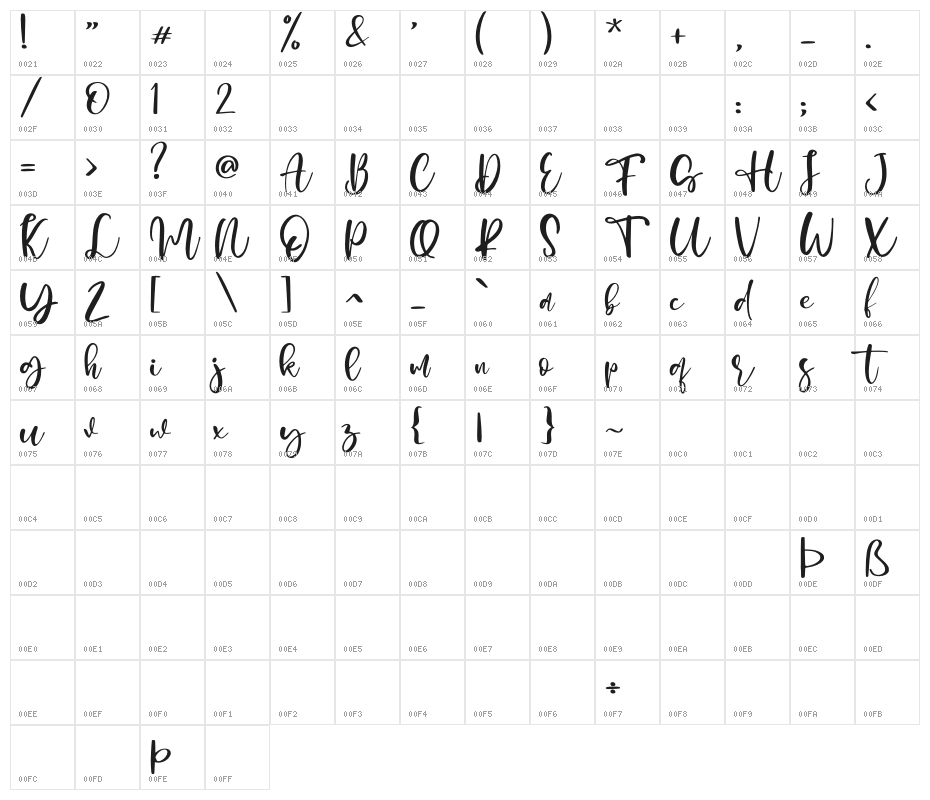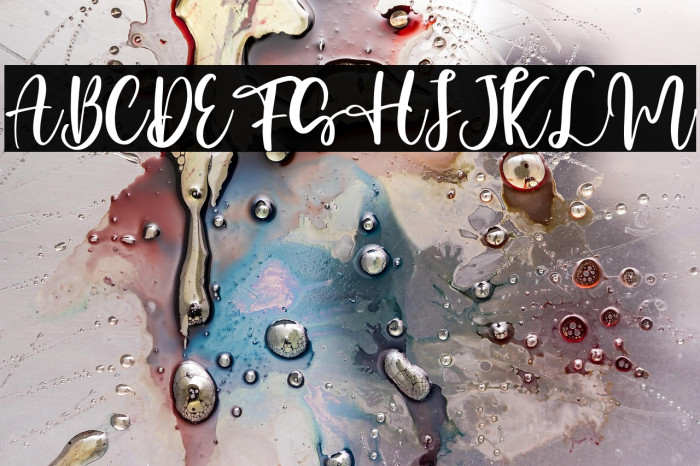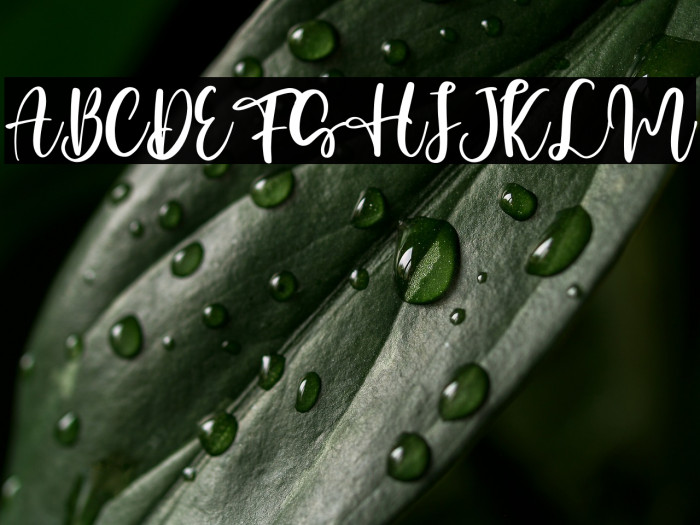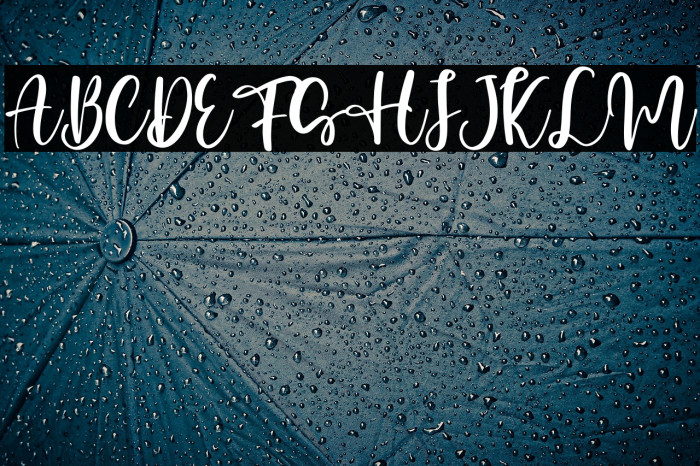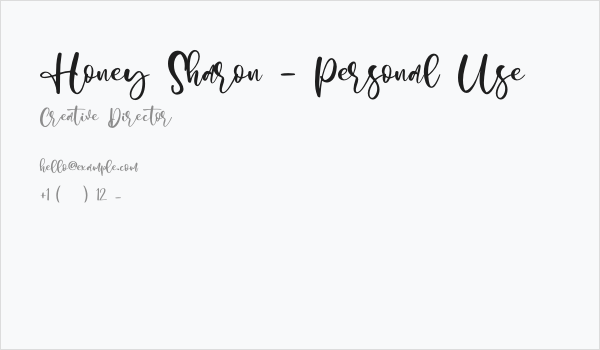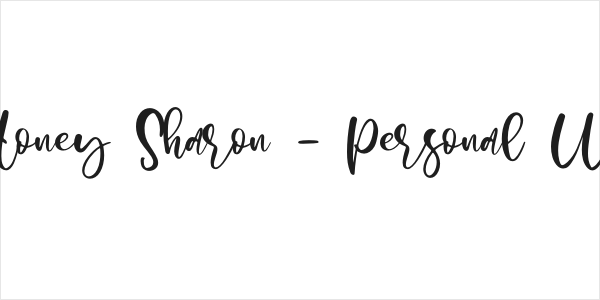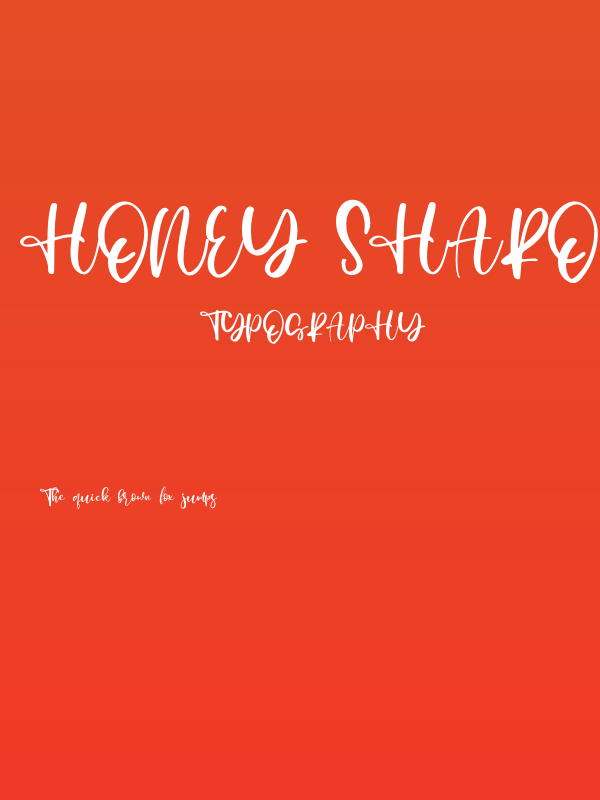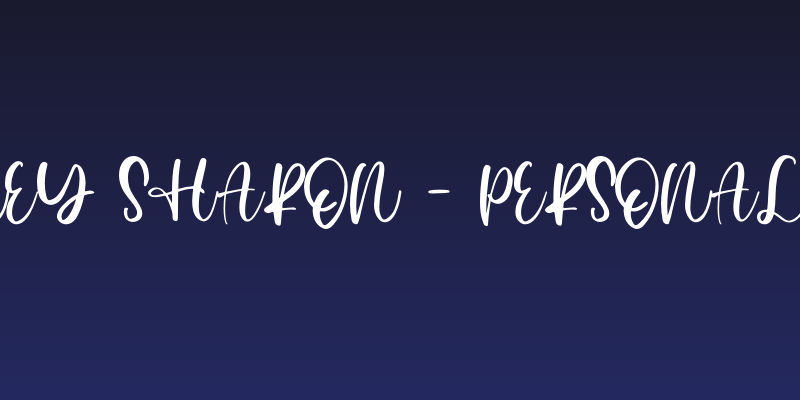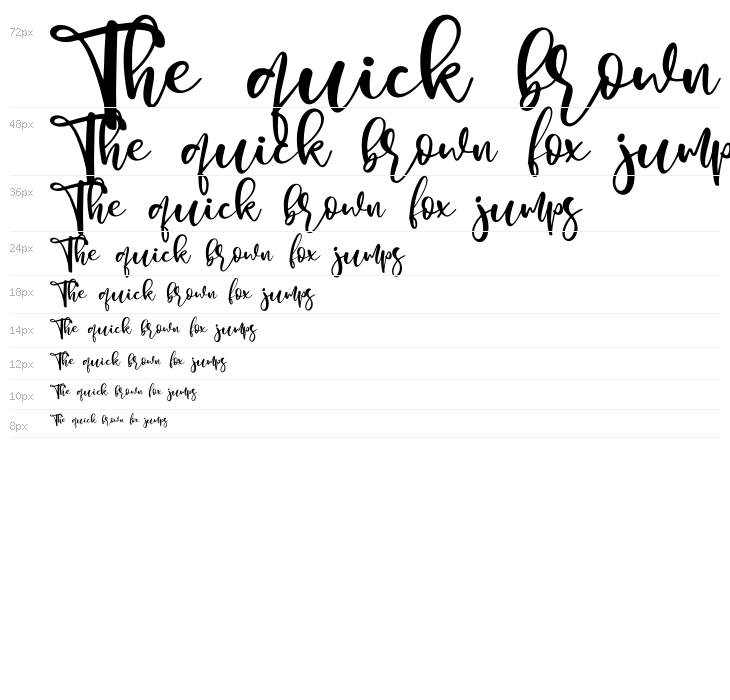
Honey Sharon - Personal Use Font
Honey Sharon - Personal Use Description
A playful and flowing script font with a handwritten style, featuring connected letters and varying stroke thickness.
| Use Case | Logos, Headlines |
| Proposed Projects | Greeting cards, invitations, personal branding. |